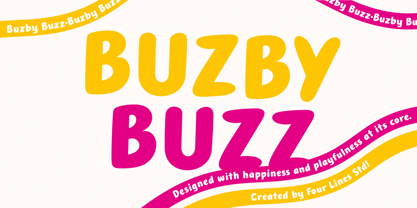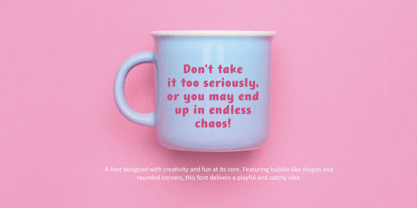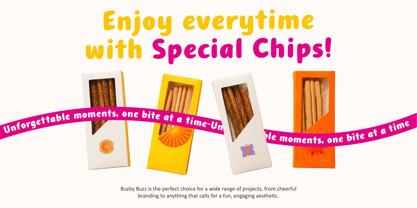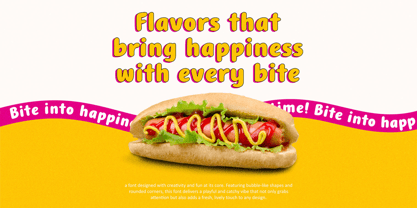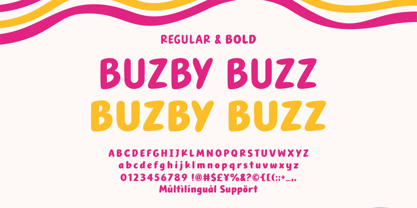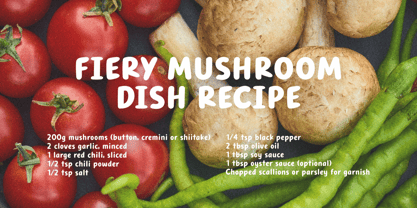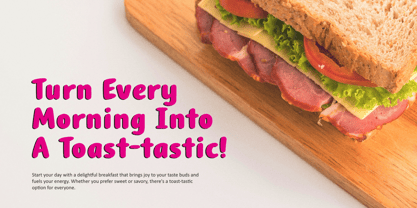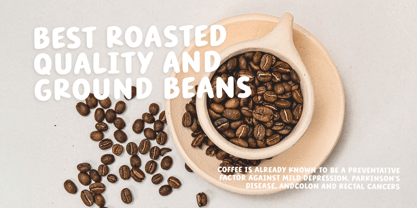
Buzby Buzz
Die Schriftfamilie Buzby Buzz wurde von Zain Fahroni entworfen und von Four Lines Std veröffentlicht. Buzby Buzz enthält 2 Stile und Familienpaketoptionen.
Introducing Buzzby Buzz – a charming and playful display font that brings a touch of fun to any design project.
Whether you’re designing for children’s products, social media graphics, or anything in between, Buzby Buzz adds personality and flair to your designs with its unique, soft, and rounded edges that resemble gentle bubbles. Ideal for anyone looking to infuse a sense of joy and warmth into their visual content.
Four Lines Studio is a graphic design studio founded in 2019 by Zain Fahroni in Bandung City, Indonesia. The studio's name is inspired by a friendship story that is close to the founder's heart. Our work is heavily influenced by this friendship, which has given birth to an identity that is associated with fun, playful, and groovy elements. A key area for the studio is typography, with a specific focus on developing fonts that emphasize minimalism and versatility.